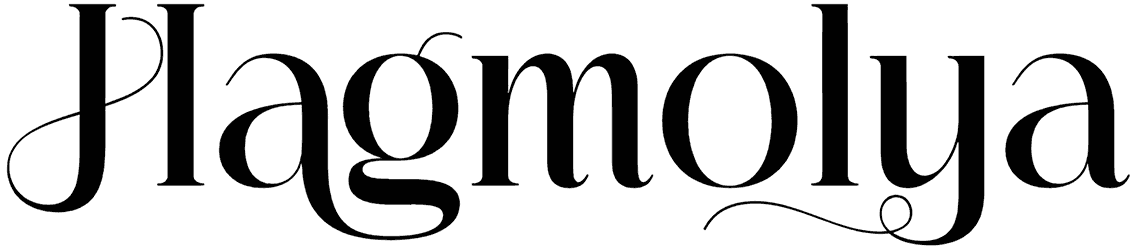
Hagmolya Font
With all the fancy letters found in Hagmolya, it makes perfect sense if you’re waiting for the right place to use this gorgeous swash font. After all, this is the chance you were looking for to bring tons of luxury to your designs in just a click.
Today’s ligature font shows you what it’s like to be so sure of your resources, essential for shining in your high-end projects such as the women’s apparel industry, fashion accessories, perfume market, and more.